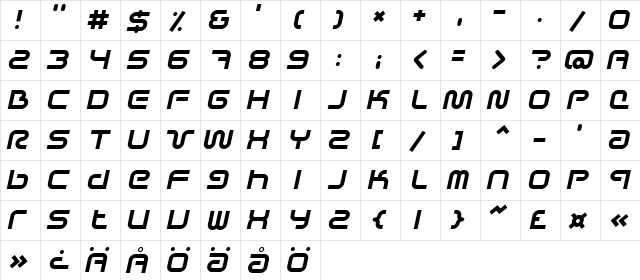
Sci Fied X Italic
Design Context for Sci Fied X Typeface
Sci Fied X has a distinctly futuristic character, with geometric precision and clean angles that feel at home in technology, gaming, and sci-fi contexts. Its italic angle brings a sense of urgency and motion to the letterforms.
Pro Tip: Try Sci Fied X with generous letter-spacing in UI labels and navigation — the geometric forms benefit from room to breathe.